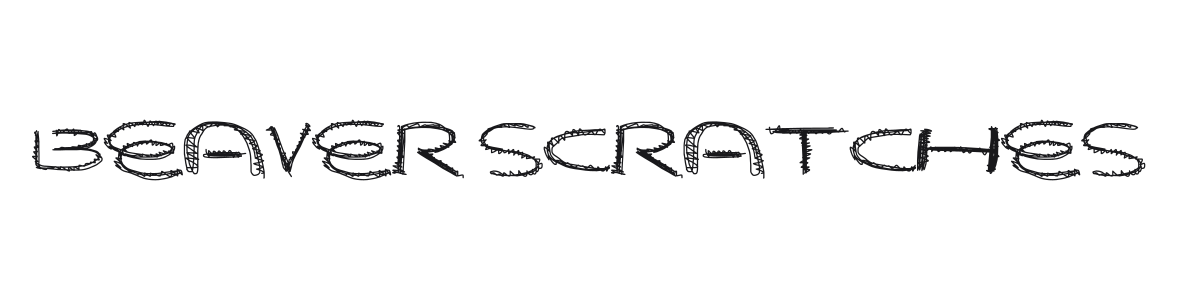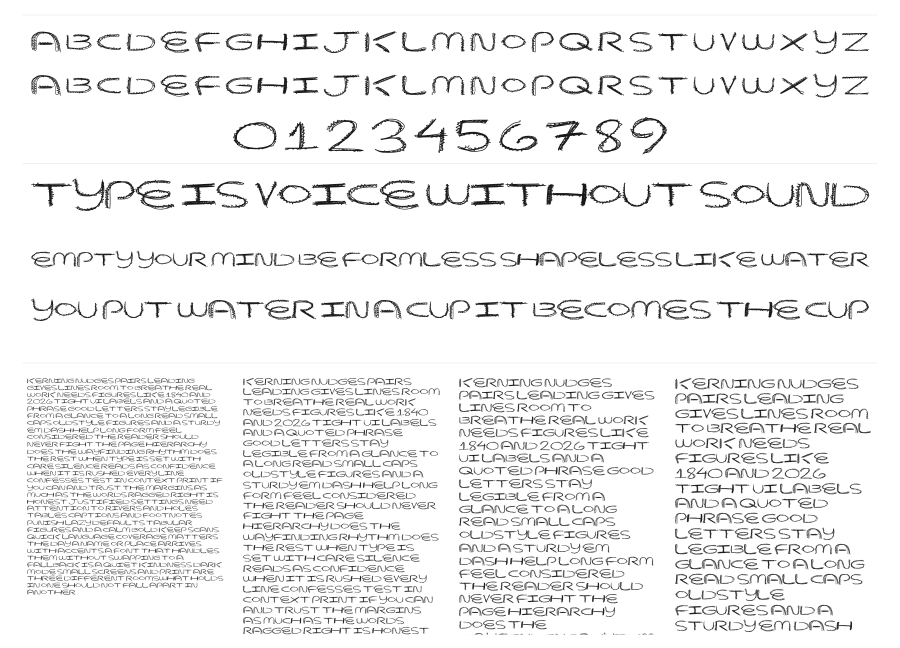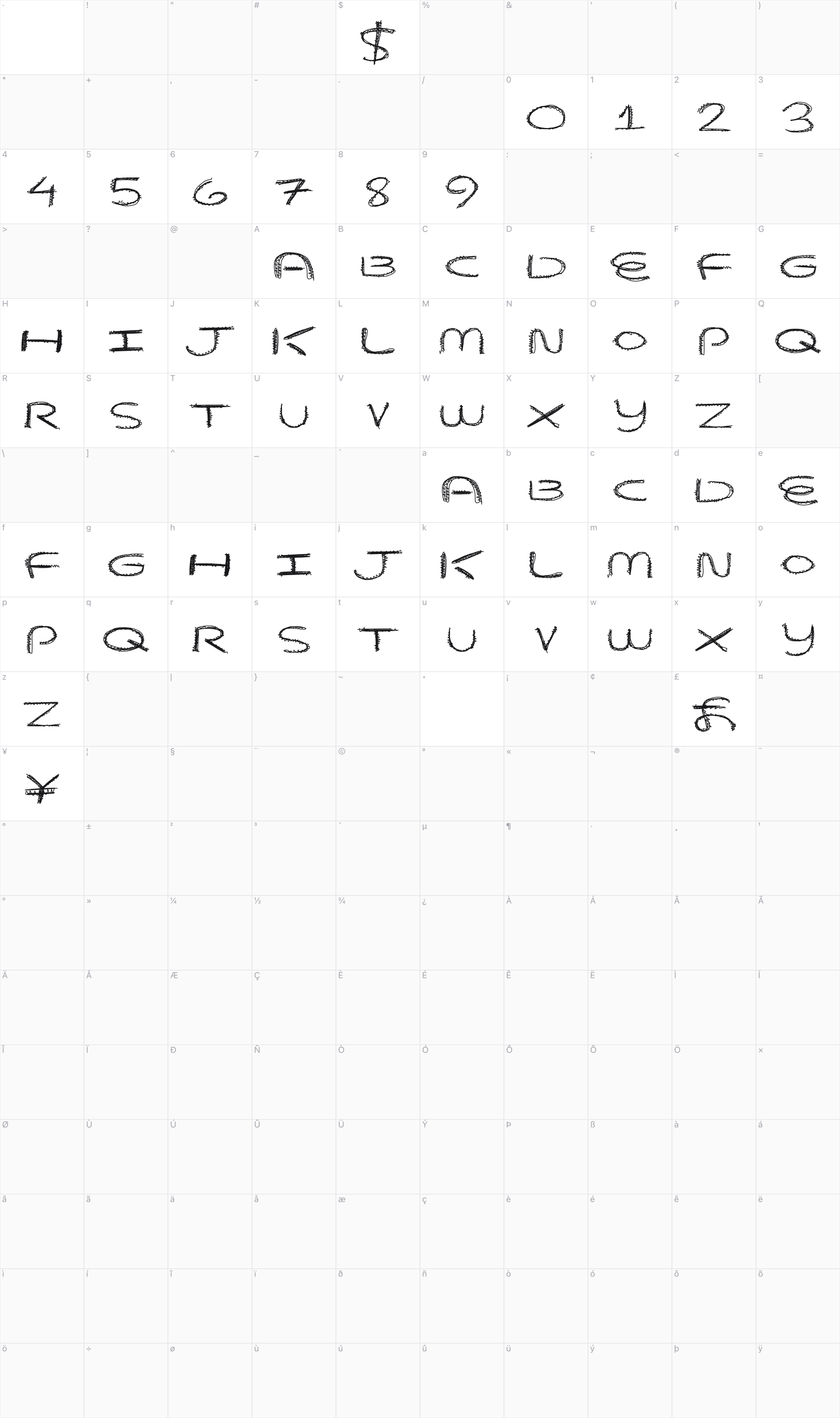
Beaver Scratches
Beaver Scratches is a rounded sans-serif display font coated in a heavy scratched texture that makes every letter look dragged through gravel. The base forms are open and friendly, but the distressed surface treatment pulls them into rougher, more expressive territory. It works at large sizes where the erosion detail reads clearly.